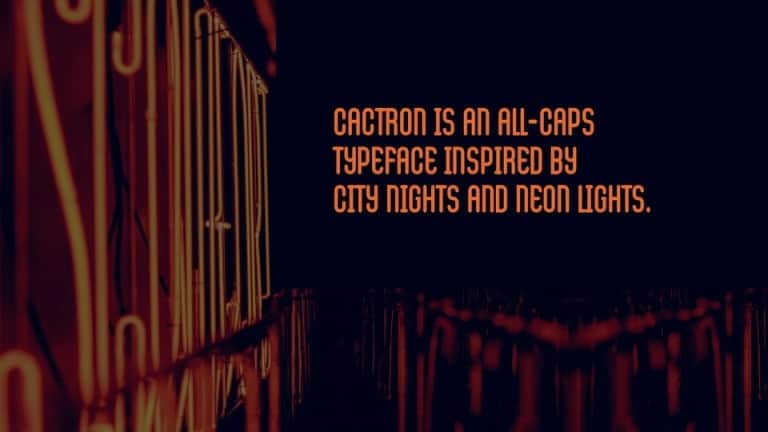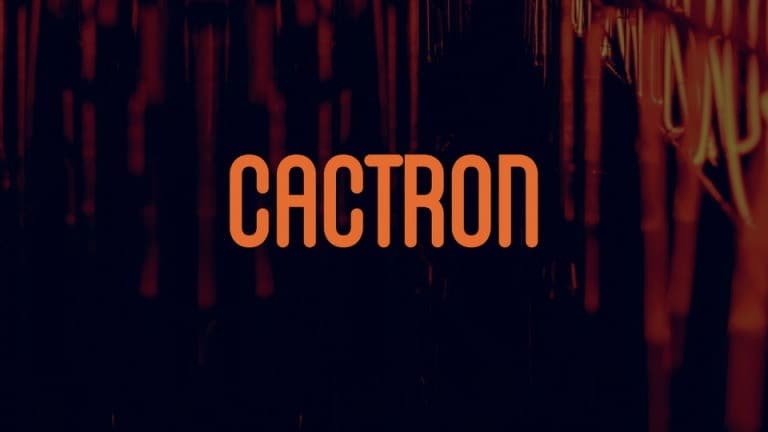
Cactron Sans Serif Font
Cactron Sans Serif Font is a regular and authentic display font. It celebrates abstract shapes in all their eclectic beauty. This font will look truly outstanding in a wide range of contexts. This typeface is designed and shared by Na cahua. It’s a sans serif font family in four styles, inspired by city nights and neon lights. It shows mostly roundness and curves in its angles, while maintaining consistent strokes in almost a modular way.